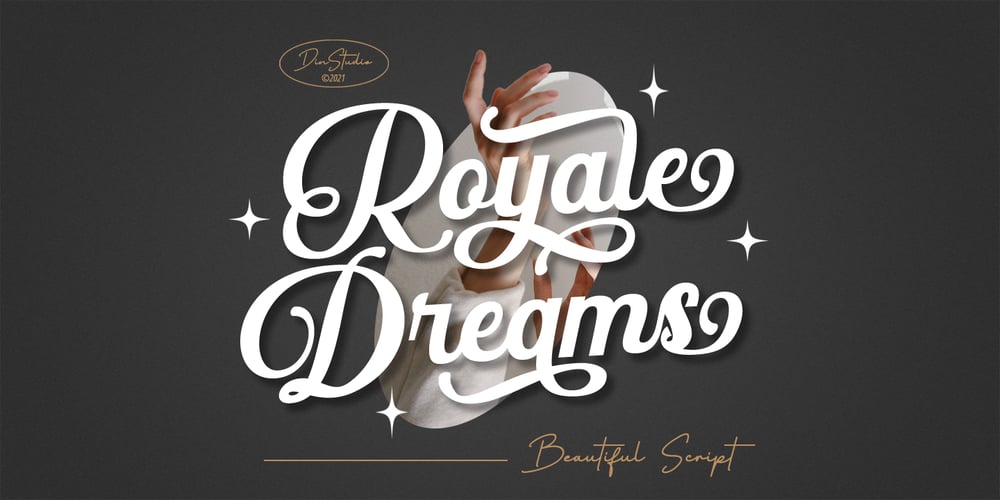
Royale Dreams
Royale Dreams font
Royale Dreams Font Family was designed by Donis Miftahudin and published by Din Studio. Royale Dreams contains 1 styles and family package options. Ready to enhance your branding? Looking for that “something” that’ll make your audience go WOW and clients get on board immediately? Maybe you’re looking for the perfect font to use on your wedding invitations or branding? Whatever you need – we’ve got JUST the thing for you!Royale Dreams-Script FontRoyale Dreams is a elegant script typeface. Designed primarily as a captivating handcrafted with style. This typeface that is easy on the eyes font that excels at captivating headlines, or large branding text, the font oozes that cute aesthetic that just makes you go “aww!”Our font always includes Multilingual Support to make your branding reach a global audience. Features: Ligatures Stylistic Sets PUA Encoded Numerals and Punctuation Thank you for downloading premium fonts from Din Studio